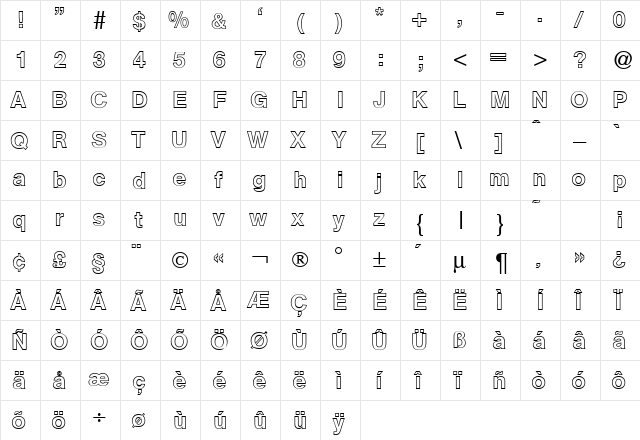
AgentOutlineDB Normal
Design Context for AgentOutlineDB Typeface
AgentOutlineDB brings ornamental detail and strong personality to headlines and identities, where visual impact matters more than quiet functionality.
Font Pairing: Pair with a clean neutral sans-serif for body copy to let AgentOutlineDB's character lead without overwhelming the composition.
Pro Tip: Use AgentOutlineDB exclusively at display sizes — it was designed to be seen, not read at length. Let a neutral companion handle body copy.